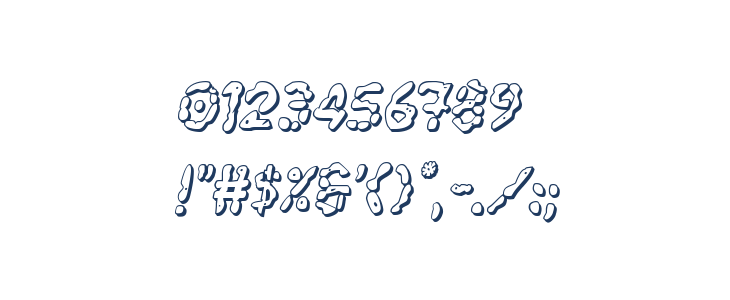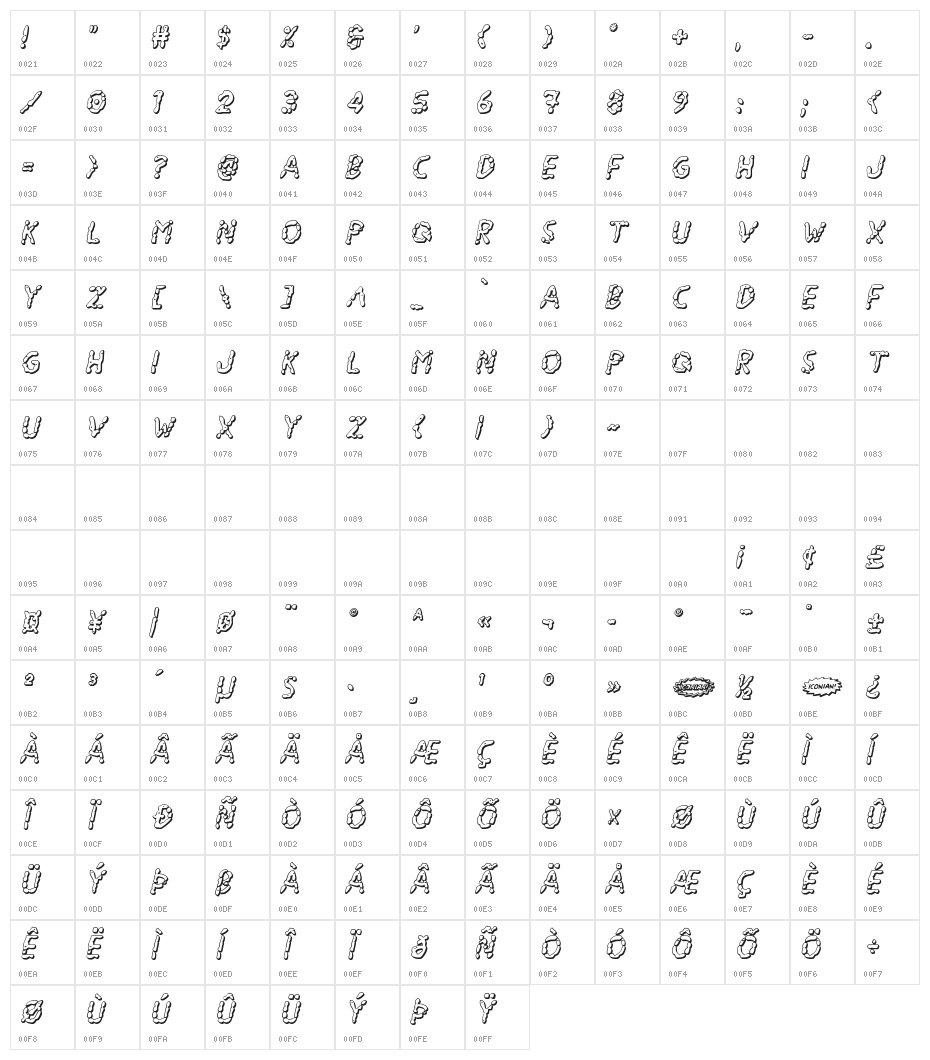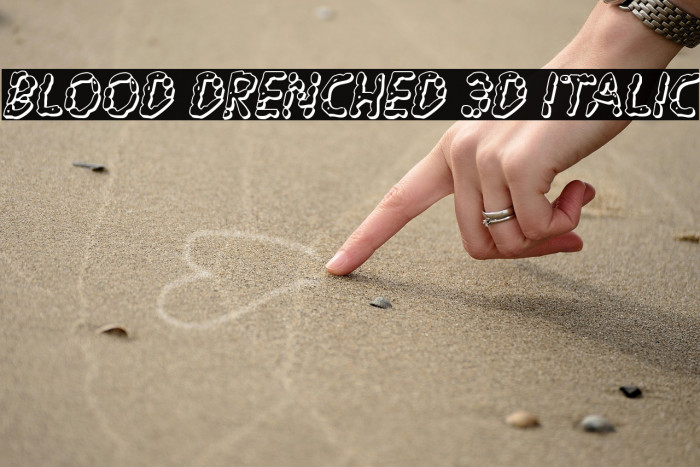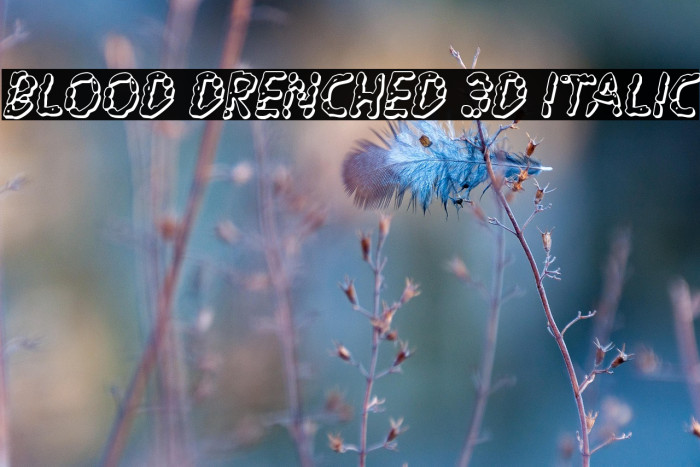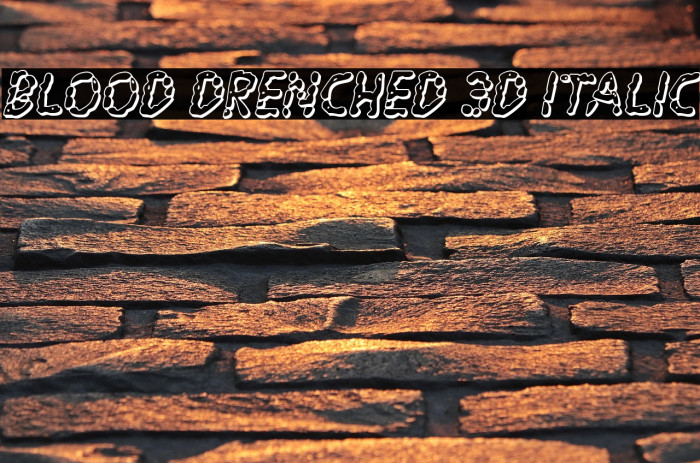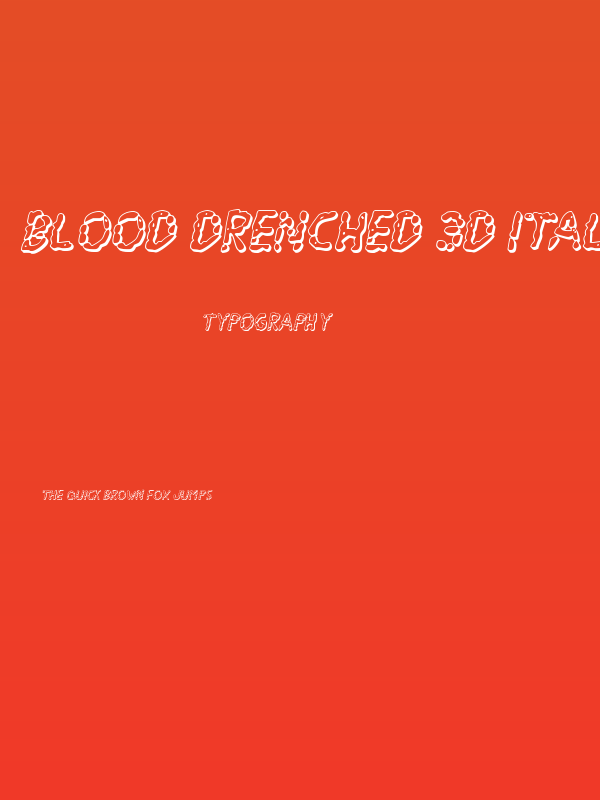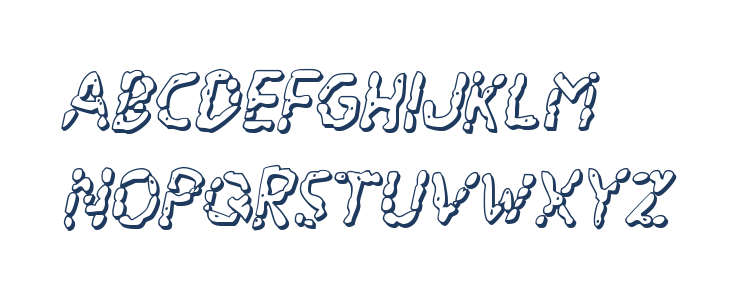
Blood Drenched 3D Italic Font
Blood Drenched 3D Italic Description
This font features a bold and dramatic 3D effect with an italicized slant, giving it a dynamic and eye-catching appearance. The letters are designed with a dripping, liquid-like texture, reminiscent of blood or paint, which adds a horror or thriller theme to the style. The uppercase and lowercase letters maintain a consistent design, with rounded edges and a playful yet eerie aesthetic. Numbers and special characters follow the same design principles, ensuring uniformity across all glyphs. The font's unique style makes it suitable for creative and thematic projects that require a bold statement.
Proposed ProjectsIdeal for Halloween posters, horror movie titles, themed event invitations, and video game graphics.